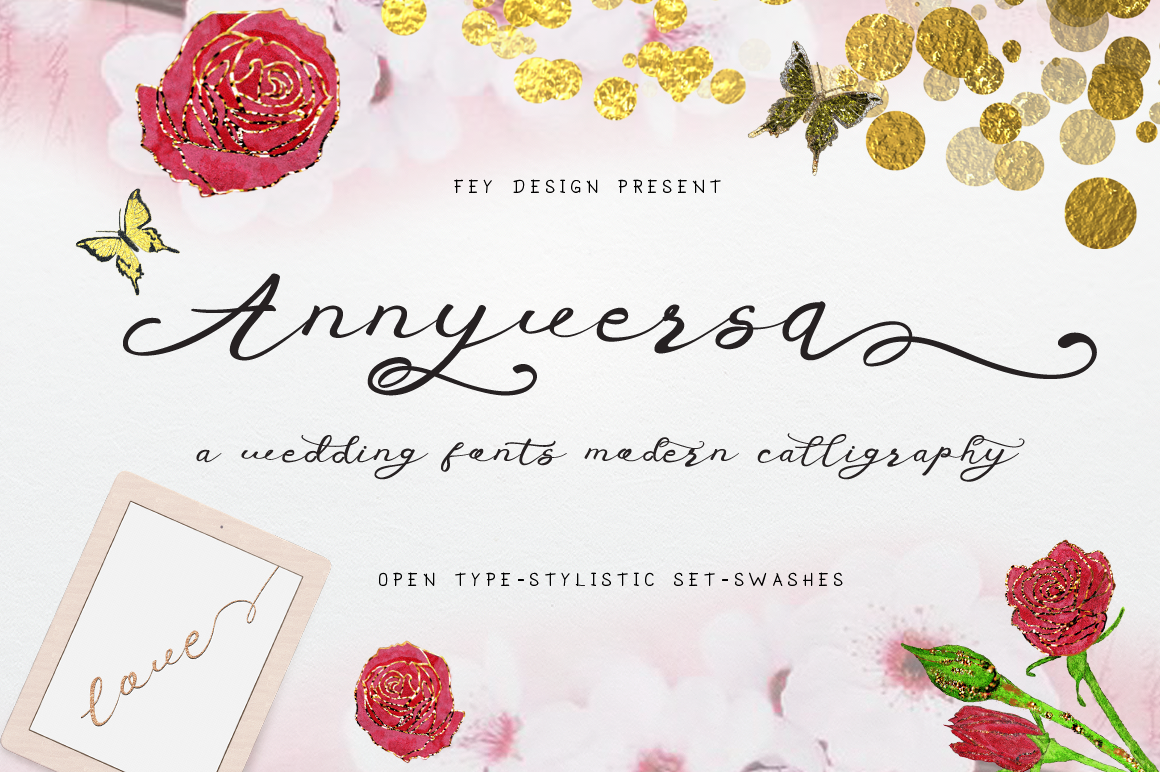
Love is in the Air: Introducing the Perfect Wedding Font
Have you ever sat down with a blank sheet of paper, a pen in hand, and a vision of your dream wedding invitation dancing in your head? That’s exactly what happened when the creators of the Anniversa Font sat down to craft the perfect script for love-struck couples. After months of design and refinement, they unveiled a stunning wedding-style font that’s captured the hearts of designers and couples alike.
As a wedding-style font, Anniversa Font is specifically designed for wedding invites, themes, signs, and much more. Its elegant, cursive script is perfect for adding a touch of romance and sophistication to any wedding-related design project. And for designers, the value lies in its versatility and ease of use – making it a go-to choice for any wedding design project.
Anniversa Font Key Features
- Font Family: A high-quality, professional font family with a wide range of styles, including serif, sans-serif, script, and display fonts.
- Character Count: With over 1,500 glyphs, Anniversa Font offers an extensive character set, including Latin, Greek, Cyrillic, and other languages.
- Resolution: Designed for high-resolution output, Anniversa Font is suitable for use in print, digital, and web applications, including resolutions up to 300 DPI.
- Unique Characteristics: Anniversa Font features a unique blend of modern and classic design elements, making it an ideal choice for projects requiring a sophisticated and timeless look.
Anniversa Font Review
As a designer, I’ve had the chance to work with various fonts, and I must say that Anniversa Font has left a lasting impression on me. Here’s my honest review:
- Unique Design: Anniversa Font boasts a distinct, hand-crafted aesthetic that sets it apart from more generic fonts.
- Legibility: The font is surprisingly legible, even at smaller font sizes, making it perfect for body text and captions.
- Character Set: Anniversa Font comes with a wide range of characters, including international symbols and glyphs, making it a great choice for multilingual projects.
- Lack of Consistency: The font’s irregularities can make it challenging to use consistently throughout a design.
- Not Suitable for Headlines: Due to its unique design, Anniversa Font may not be the best choice for headlines, as it can be difficult to read at larger font sizes.
- May Require Adjustments: Depending on the project, you may need to adjust the font’s spacing, kerning, or line height to achieve optimal results.
Overall, Anniversa Font is a solid choice for designers looking for a unique and legible font. While it may have some limitations, its distinct design and wide character set make it a great addition to any design arsenal.
Tips for Getting the Most Out of Anniversa Font
Use Anniversa Font for designs that require a unique and elegant touch.
Combine Anniversa Font with other fonts to create a visually appealing design.
Is Anniversa Font optimized for digital displays?
Yes, Anniversa Font is optimized for digital displays, including screens and e-readers. The font is designed with a high x-height and open letterforms to ensure clear readability on a variety of digital devices. Additionally, Anniversa Font is available in a range of weights and styles to accommodate different digital display resolutions and screen sizes.